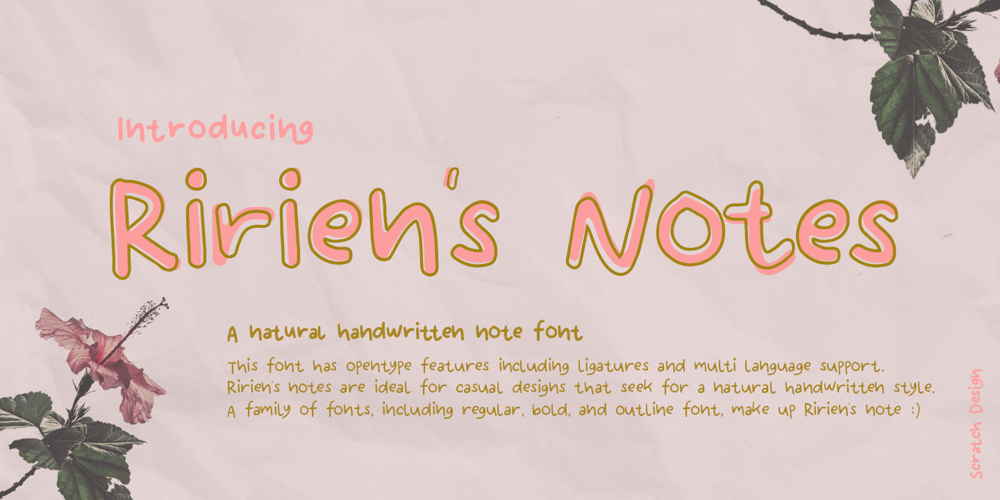
Ririen Notes Font Family was designed by Gitayogi Irhandi and published by Scratch Design. Ririen Notes contains 2 styles and family package options. Ririen’s Notes have a 100% level of cuteness & natural handwritten font. This font is complete with families such as regular, bold, outline style, ligatures, all punctuation, and multi-language support. Ririen’s Notes has an authentic shape and looks like a natural teenage girl handwritten so this font is perfect to apply to the casual and cute design. This font will be perfect when you using for posters, name cards, books, comics, presentations, or packaging designs.What are you waiting for? Download now Ririen’s Notes font and make your cute design artwork!Thank you for checking and visiting our store, and feel free to drop me a message if you had any questions! Visit our Instagram ๐ www.instagram.com/scratchdesignbali